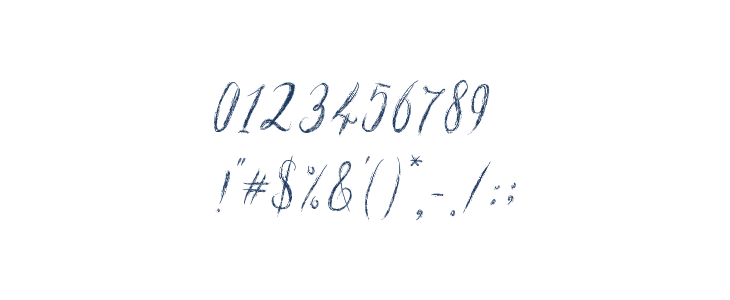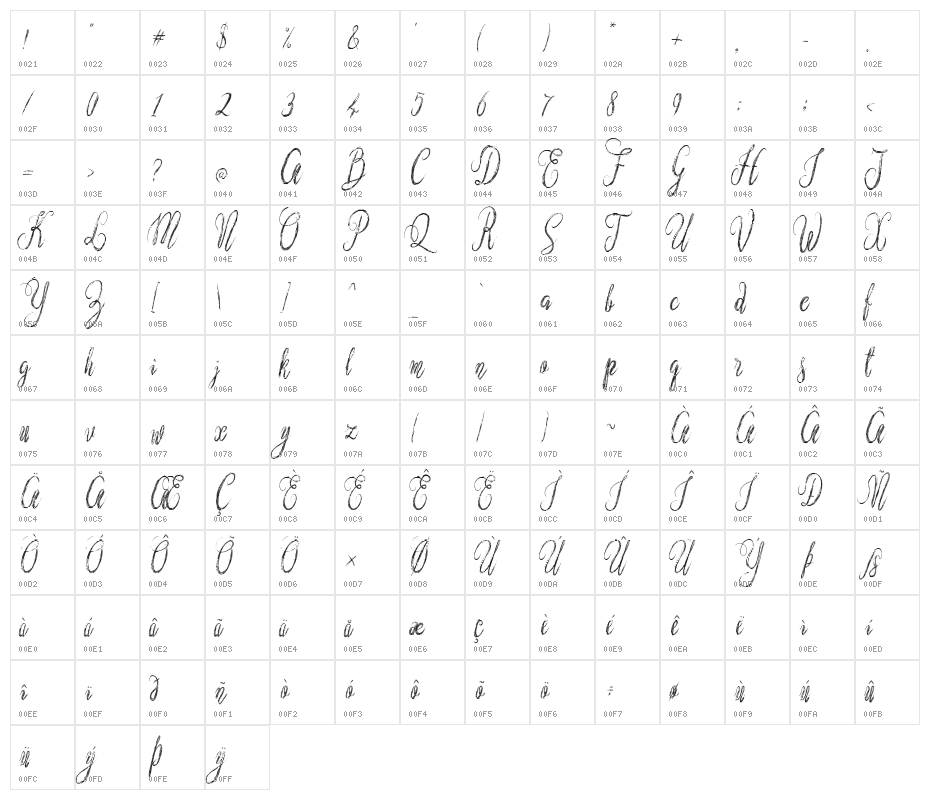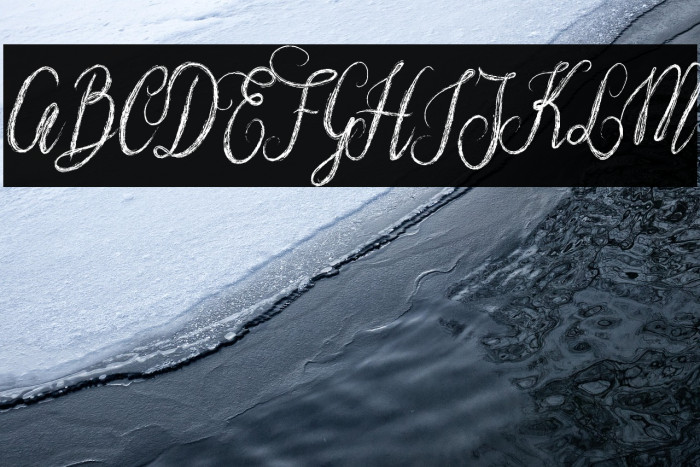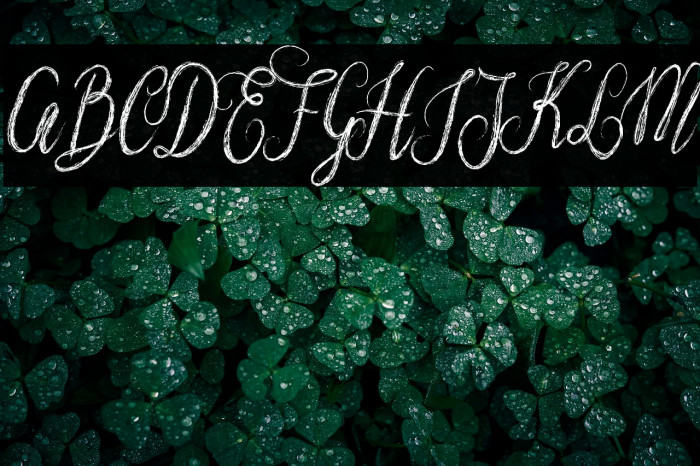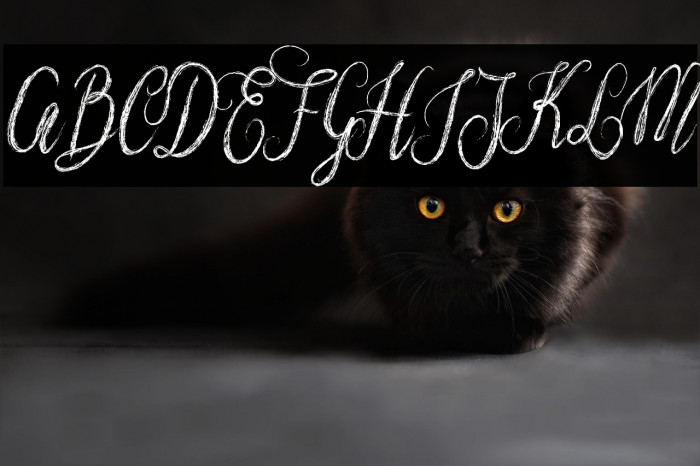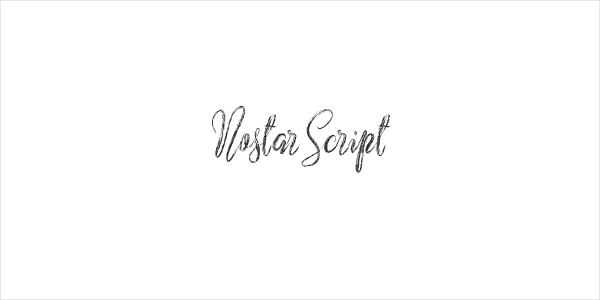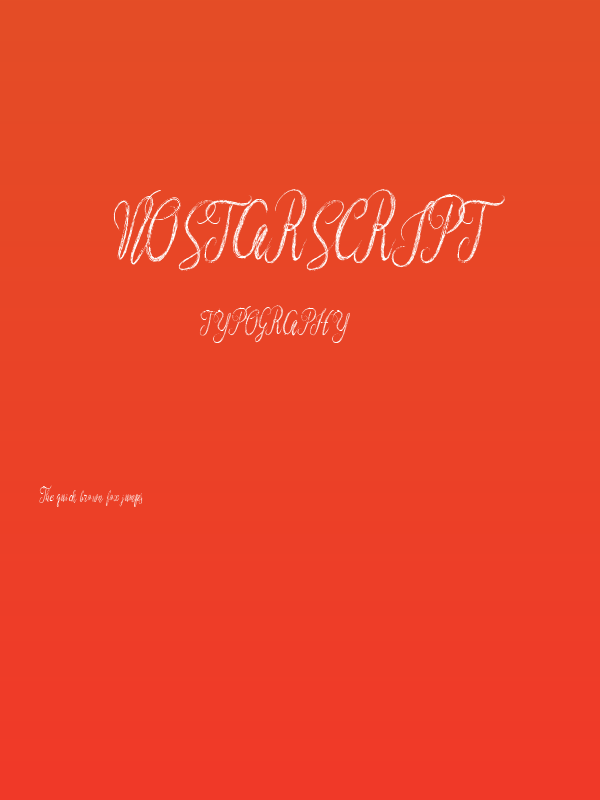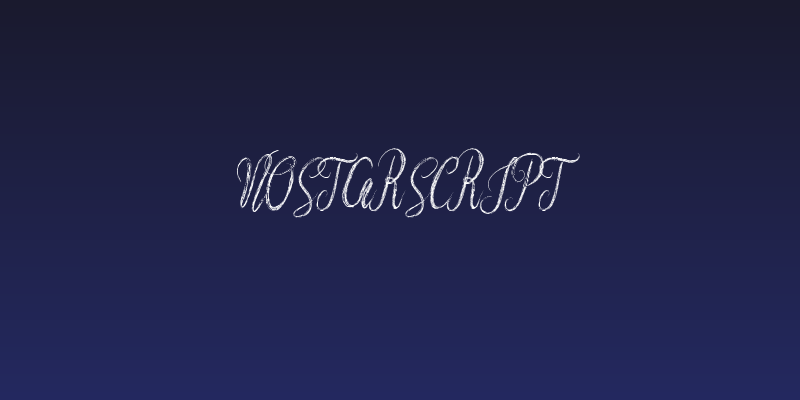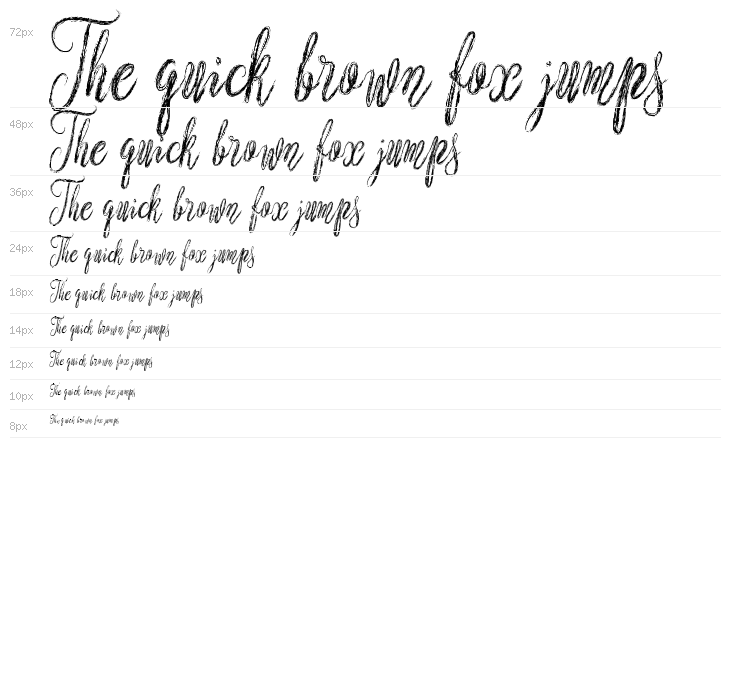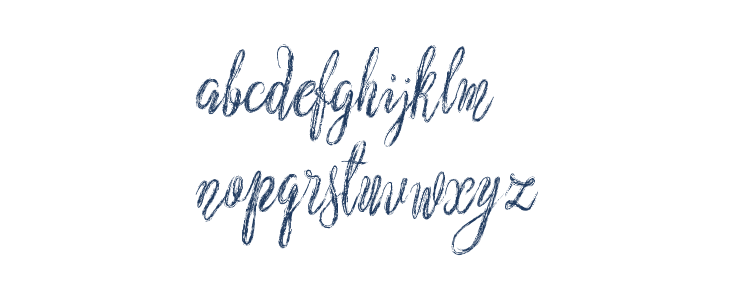
NostarScript Font
NostarScript Description
This font features an elegant, flowing script style with a hand-drawn appearance. The letters are connected, creating a continuous, cursive look that is both sophisticated and artistic. The uppercase letters are tall and graceful, with sweeping curves and loops that add a sense of movement and fluidity. The lowercase letters maintain the same flowing style, with some letters featuring distinctive loops and flourishes. The numbers and special characters are designed to match the overall aesthetic, ensuring a cohesive look across all text. The font's texture gives it a unique, slightly rough appearance, adding to its charm and character.
| Use Case | Logos, Invitations, Decorative text |
| Proposed Projects | Ideal for wedding invitations, greeting cards, logos, and branding materials that require a personal, artistic touch. |